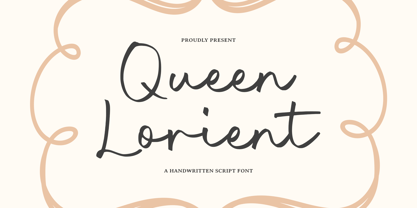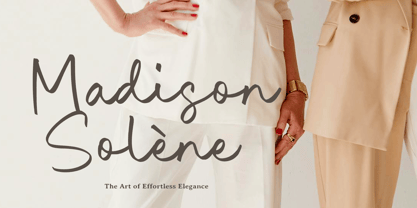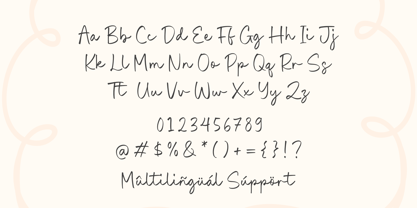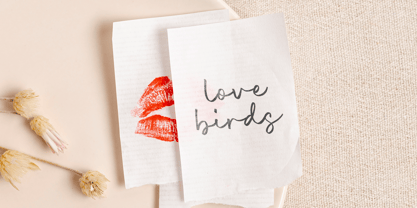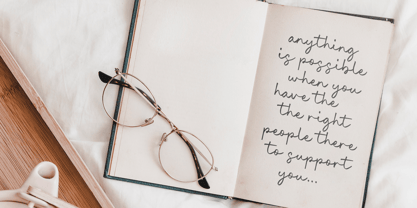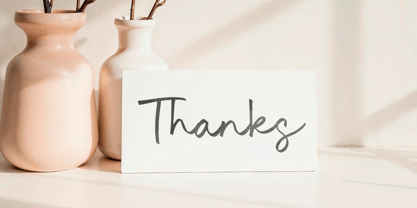
Queen Lorient
by Timurtype
The Queen Lorient Font Family was designed by Wara Sigit Tri Pamungkas and published by Timurtype. Queen Lorient contains 1 styles. More about this family
Introduced by Timurtype Studio!
Queen Lorient is a Handwritten Script Font
This font is a elegant handwritten script font that blends classic charm with modern sophistication. Featuring flowing, graceful letterforms and delicate curves, it's perfect for wedding invitations, branding, and luxury design projects. Queen Lorient adds a romantic to any creative work.
Queen Lorient Font also supports multilingualism
Designers: Wara Sigit Tri Pamungkas
Foundry: Timurtype